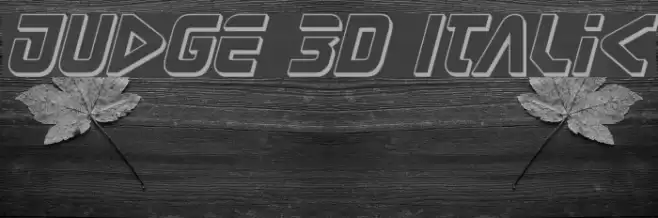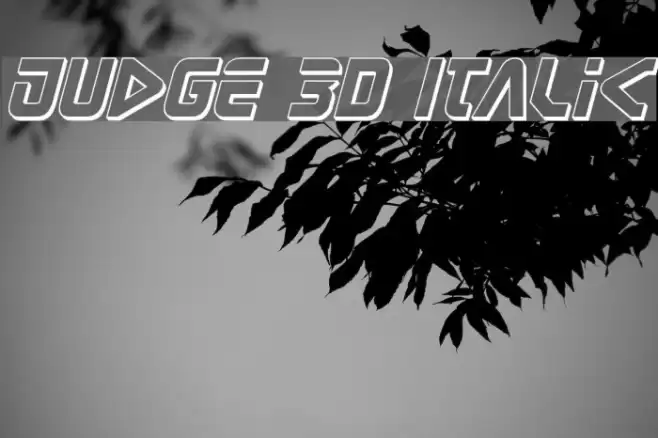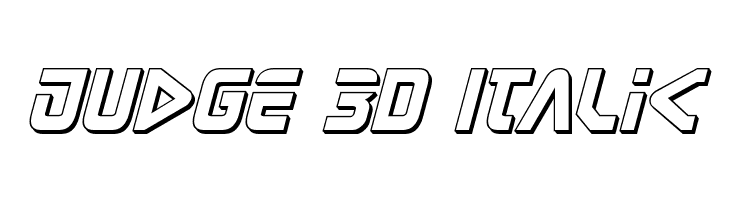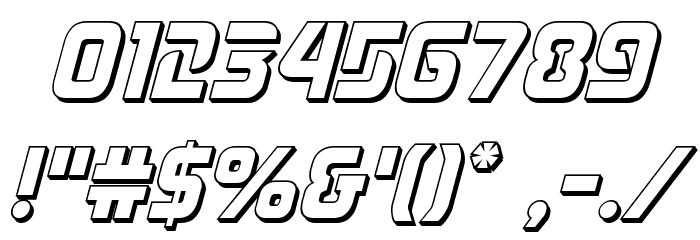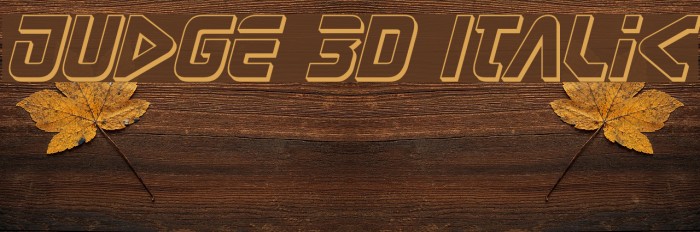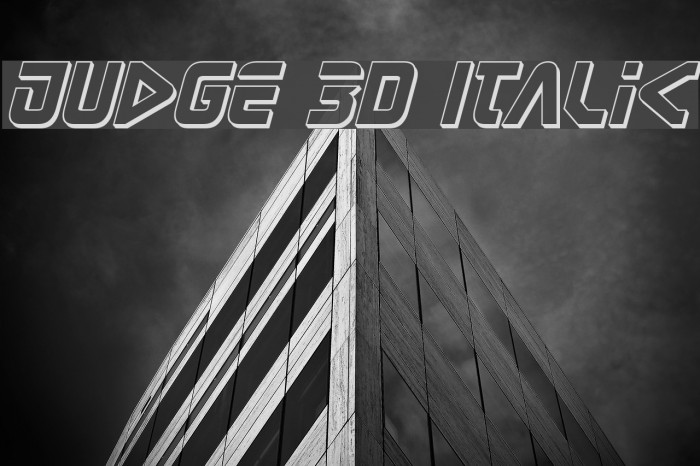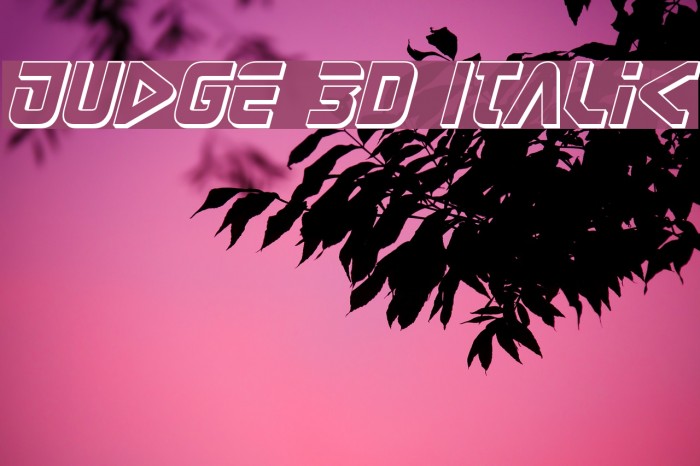
Judge 3D Italic Font
Judge 3D Italic Description
This font features a bold, three-dimensional design with an italic slant, giving it a dynamic and futuristic appearance. The characters are outlined, creating a hollow effect that enhances the 3D illusion. The geometric shapes and sharp angles contribute to its modern and edgy style. The uppercase and lowercase letters maintain a consistent design, with the lowercase being slightly smaller in scale. Numbers and special characters follow the same stylistic approach, ensuring uniformity across all glyphs. This font is ideal for projects that require a striking and contemporary look.
A bold, 3D italic font with a futuristic and geometric style from Uncategorized fonts.
- Proposed Projects: Ideal for sci-fi themed designs, video game titles, futuristic branding, and tech-related projects.